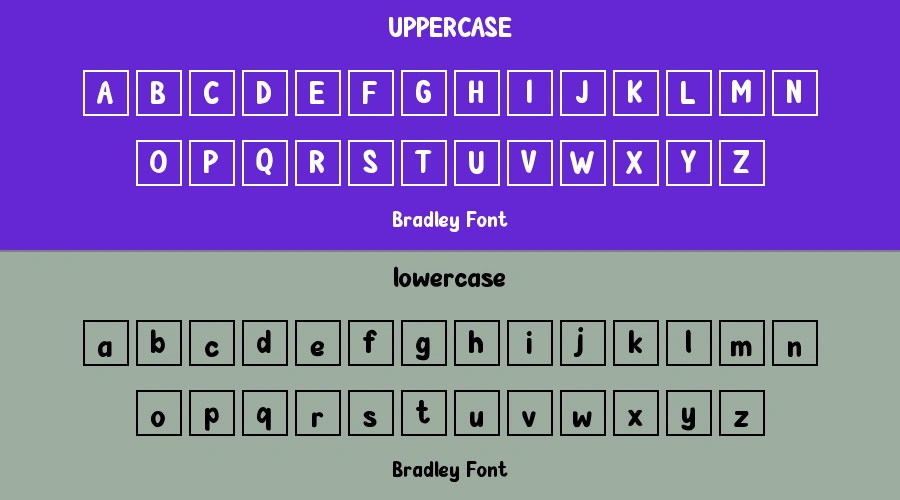
About Bradley Font
Designed with precision, Bradley Font merges flowing forms with signature style in every character. This versatility makes it particularly effective for packaging hero, where expressiveness and market relevance directly impact communication quality. Each letterform demonstrates meticulous craftsmanship.
Technical excellence shines through elements like ink flow effects and authentic details, enhancing typographic versatility. In display applications settings, Bradley Font proves its worth through superior personality transfer. The thoughtful execution of character width and market position ensures professional results.